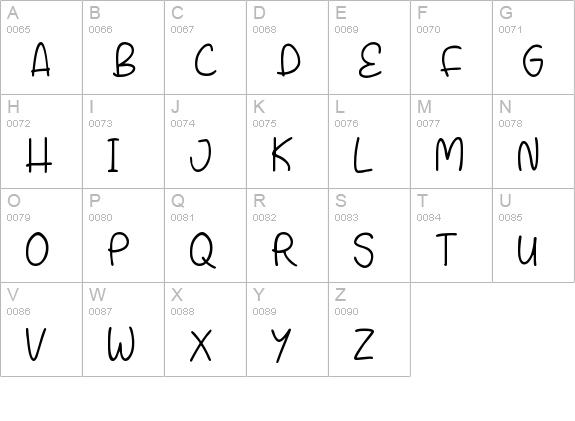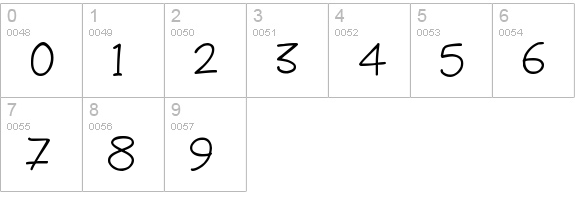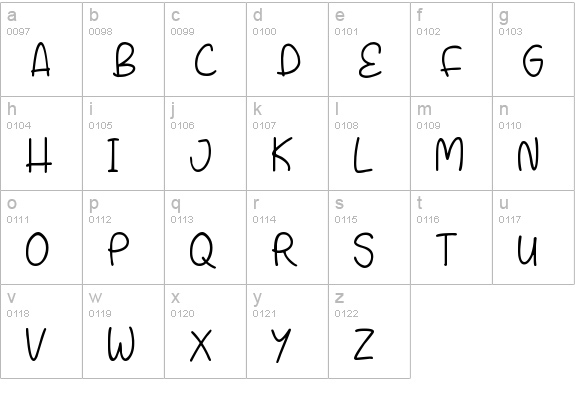
Shine With Me Font Details
Shine With Me is a free for personal use font in the Script > Handwritten category, designed by Darrell Flood. It has been downloaded 115 times and is available for Windows, Mac and Linux.
Shine With Me font is a stunning and elegant typeface that exudes sophistication and charm. With its intricate details and graceful curves, this font is perfect for adding a touch of luxury to your designs. The Shine With Me font is versatile and can be used for a wide range of projects, from invitations to branding to social media graphics.